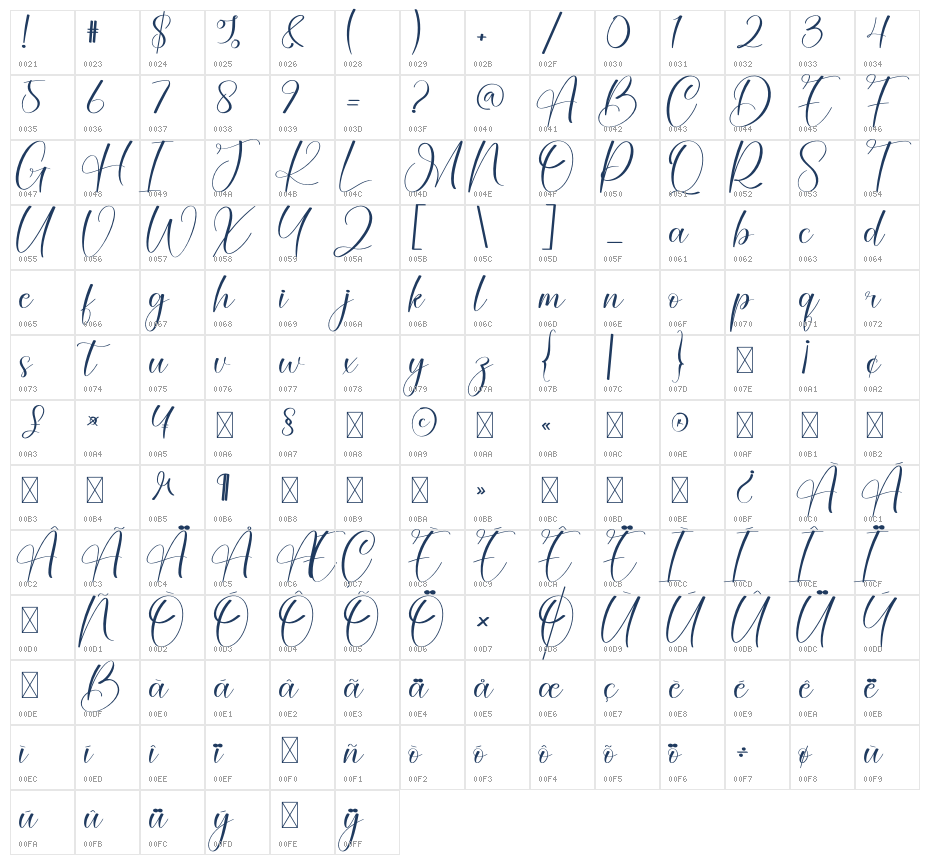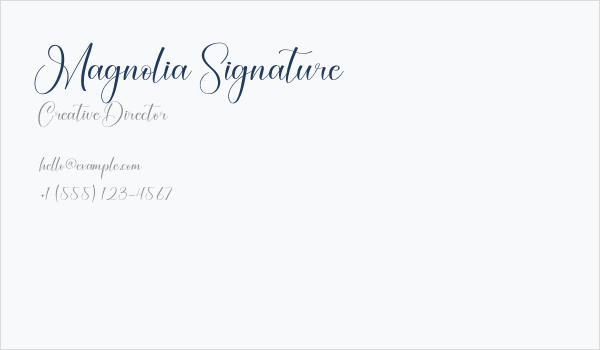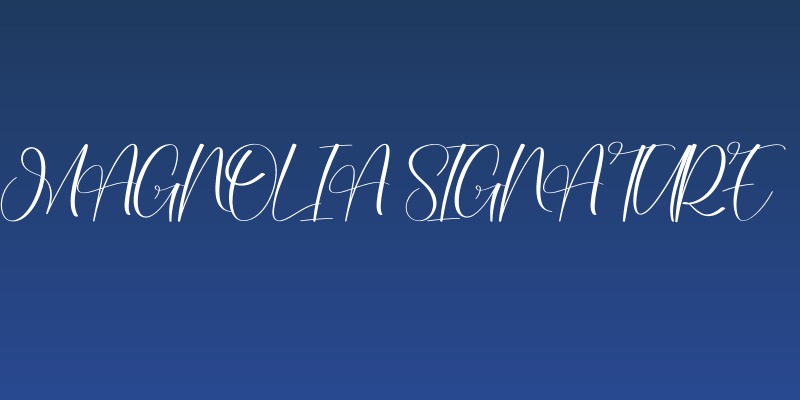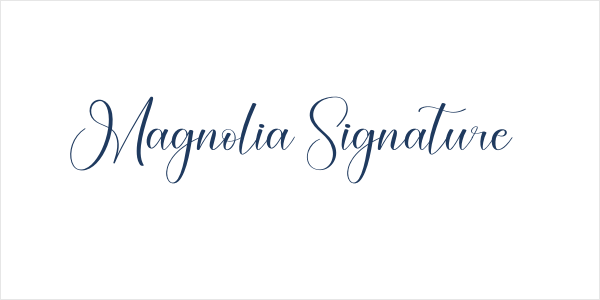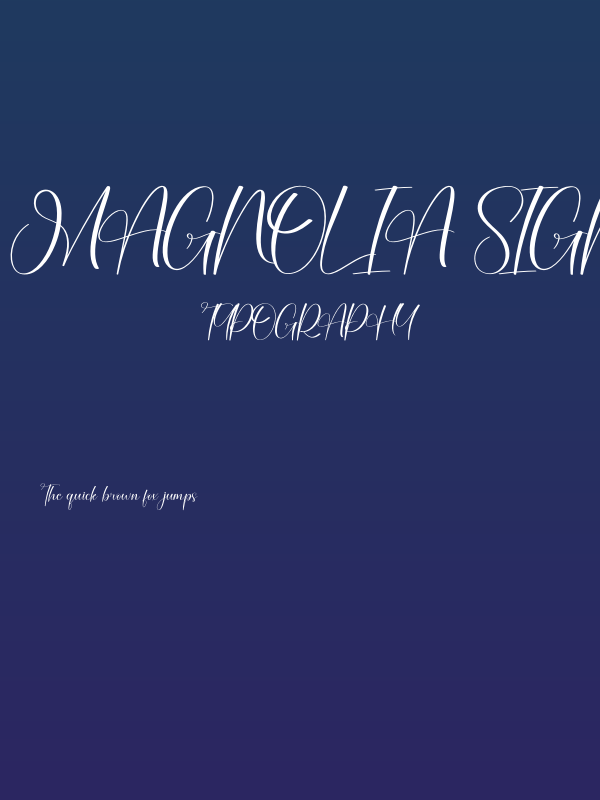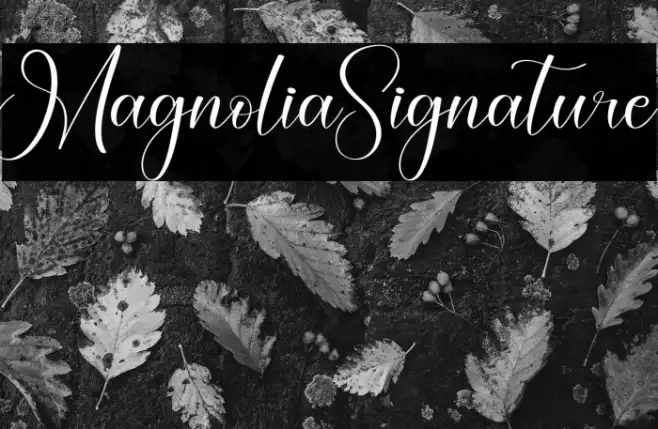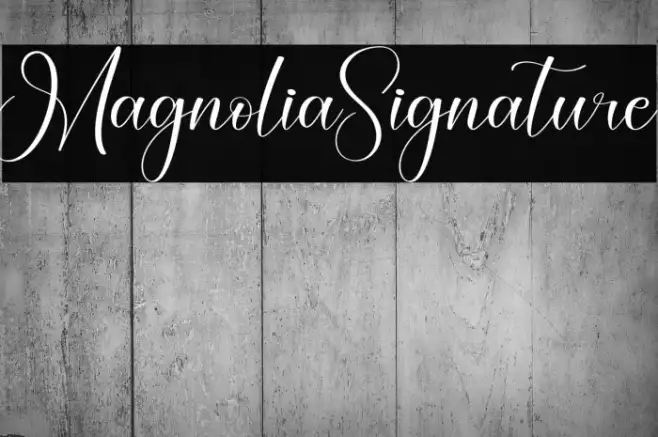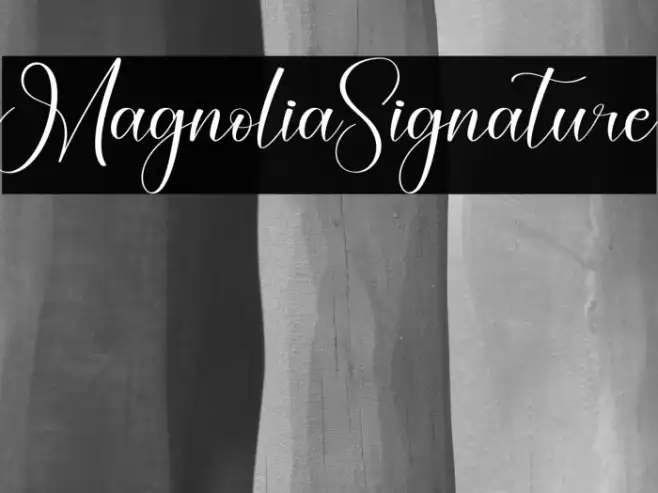
Magnolia Signature Font
Magnolia Signature Description
Elegant, cursive script font with flowing, decorative strokes and high contrast between thick and thin lines.
| Overall Style | Elegant, Decorative, Calligraphic |
| Use Case | Headlines, Invitations, Logos, Decorative Text |